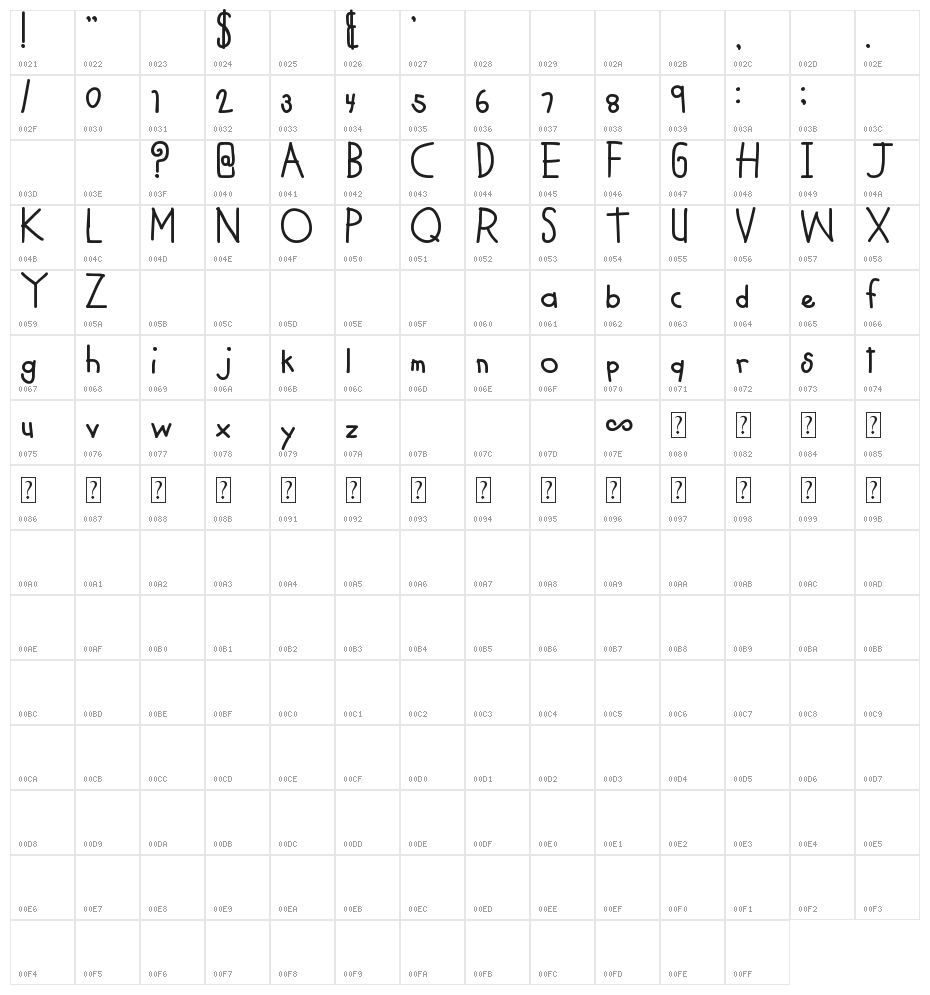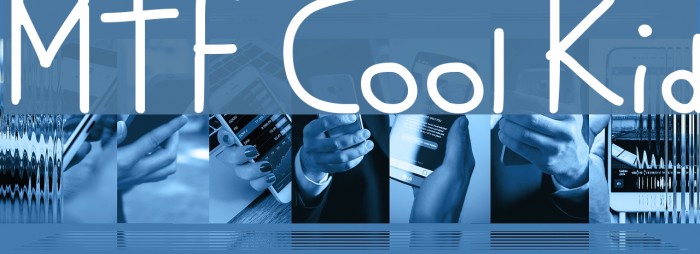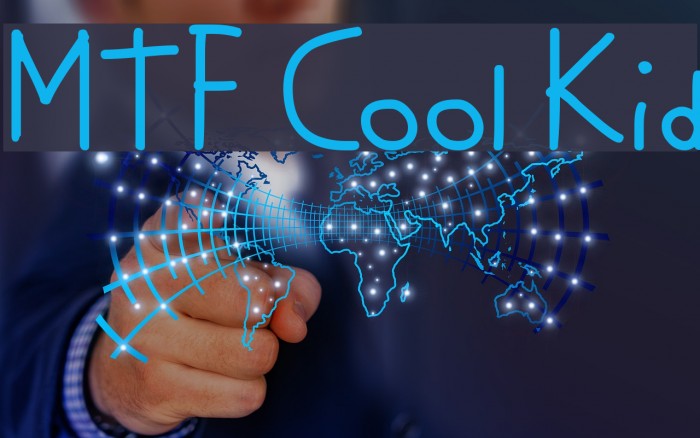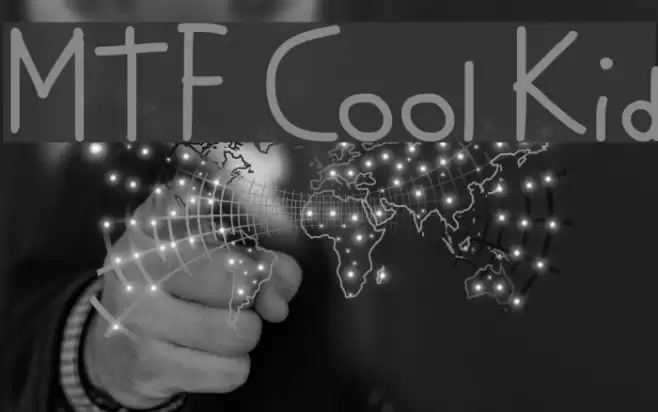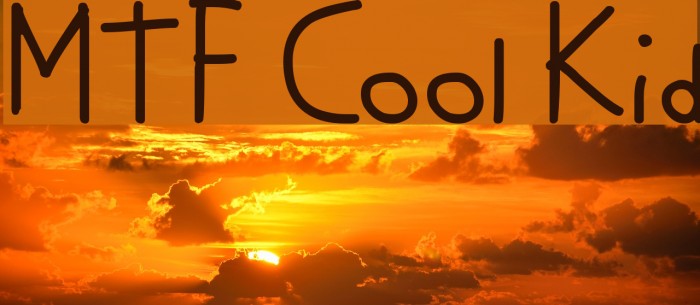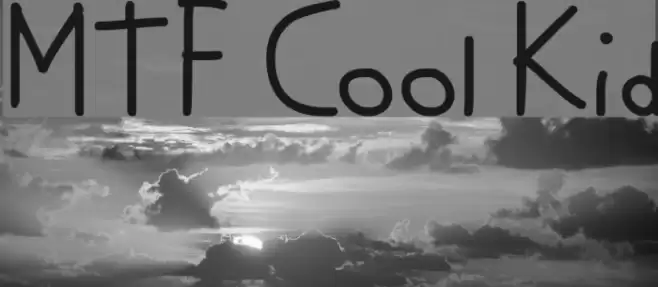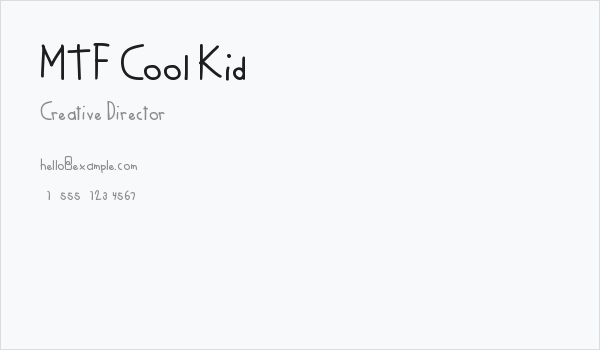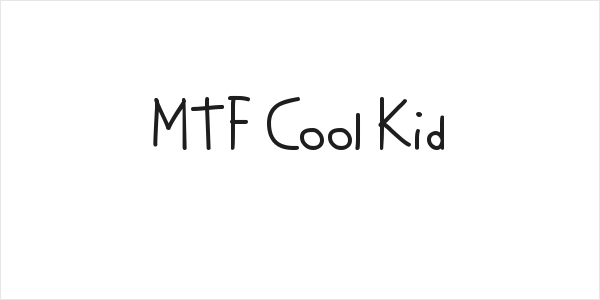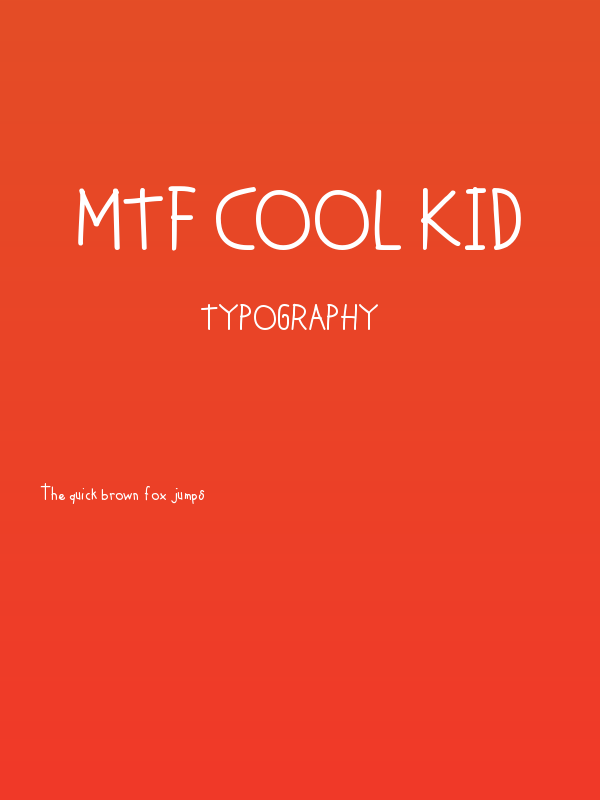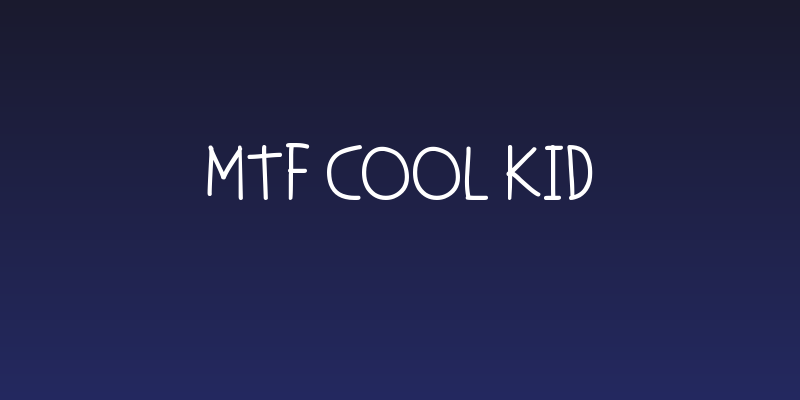
MTF Cool Kid Font
MTF Cool Kid Description
This playful and whimsical font features a handwritten style with a casual and friendly appearance. The characters are slightly irregular, adding a touch of personality and charm. The uppercase letters are tall and narrow, while the lowercase letters have a more rounded and approachable feel. The numbers and special characters maintain the same playful aesthetic, making them suitable for informal and creative projects. The overall design is clean and legible, ensuring readability while maintaining a fun and engaging look.
| Proposed Projects | Ideal for children's books, greeting cards, playful branding, and informal invitations. |